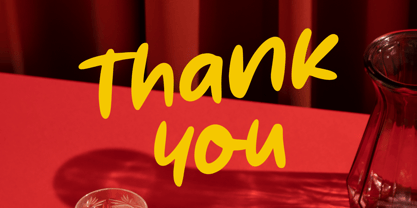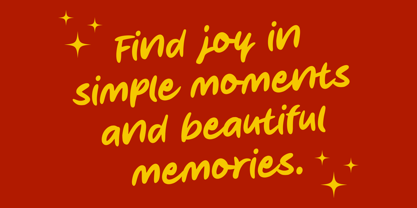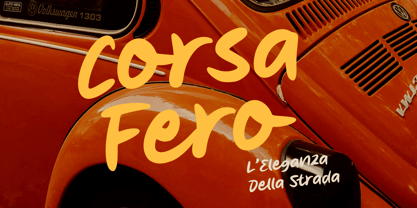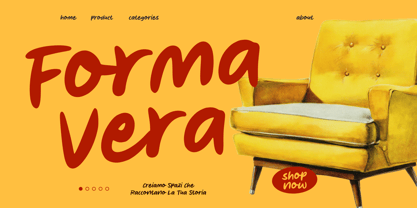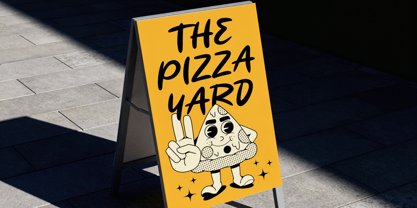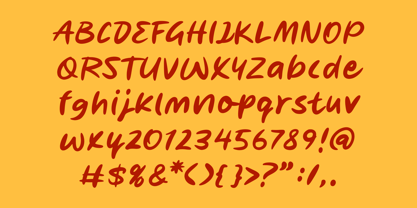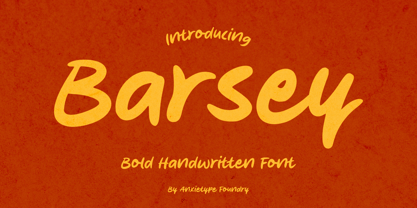
Barsey
La famille de polices Barsey a été conçue par Annas Rifky Anhar et publiée par Anxietype Foundry. Barsey contient 1 styles. En savoir plus sur cette famille
Meet Barsey, a playful bold handwriting font designed by Anxietype Foundry. With its expressive strokes, chunky handwritten forms, and energetic personality, Barsey infuses a fun and authentic hand-drawn feel into every design. Its bold character ensures high visibility while maintaining a casual, friendly, and creative appearance. Barsey is ideal for a variety of applications, including branding, logos, posters, social media designs, packaging, apparel, stickers, quotes, invitations, greeting cards, and lifestyle projects. Whether you're crafting something playful, youthful, bold, or effortlessly creative, Barsey adds a unique personality and a handmade touch that makes your designs truly stand out.